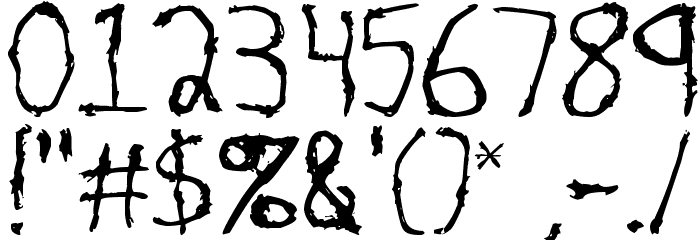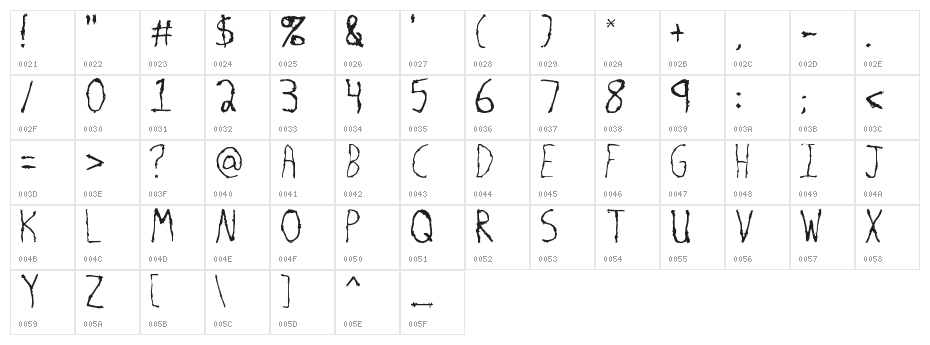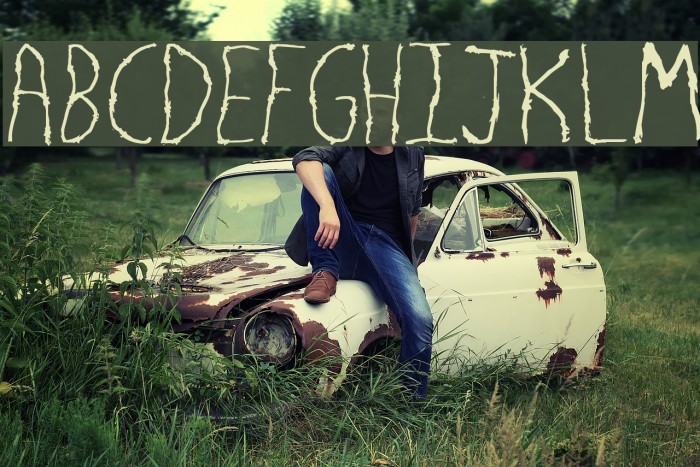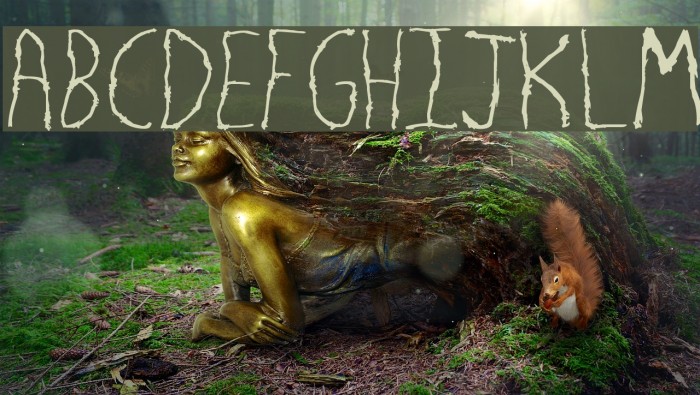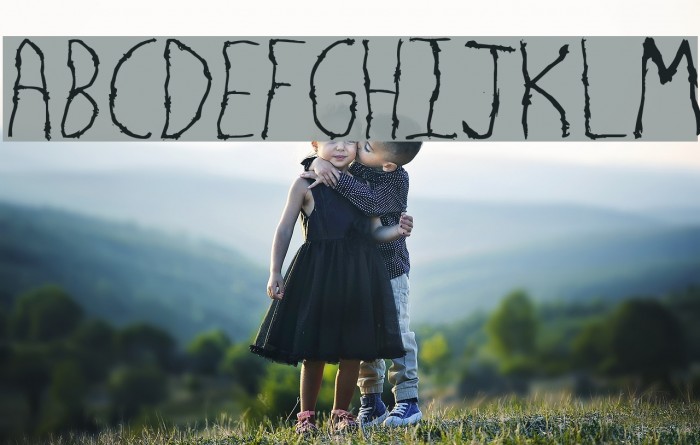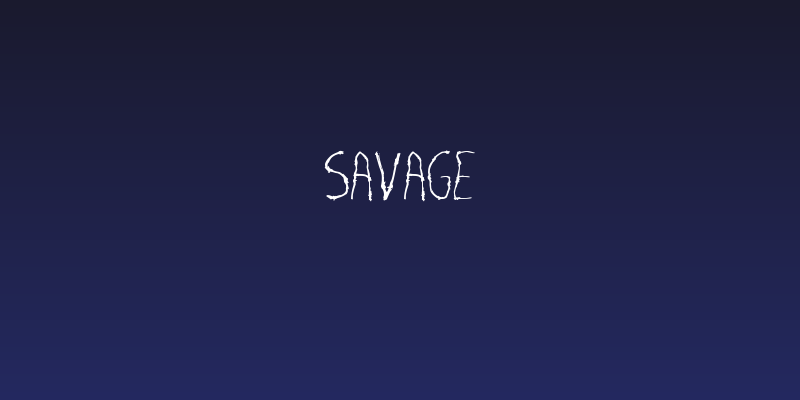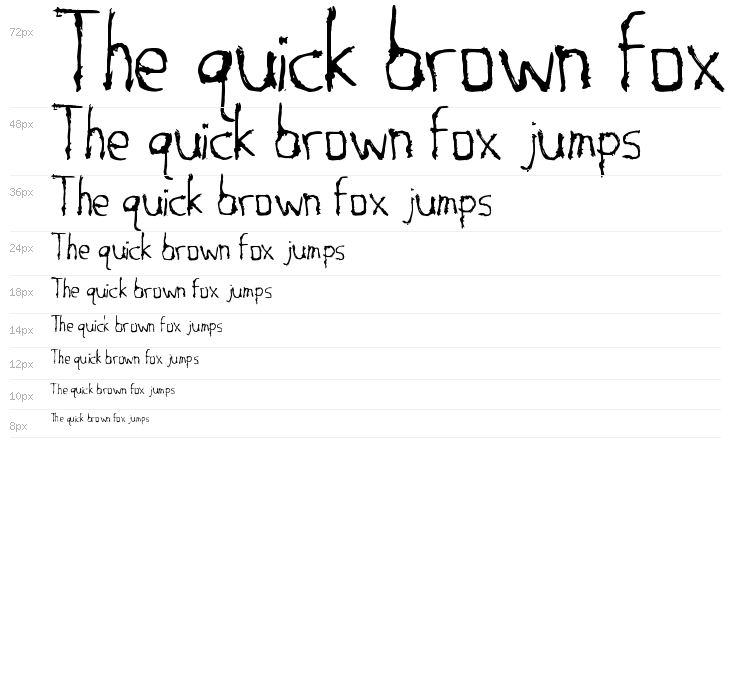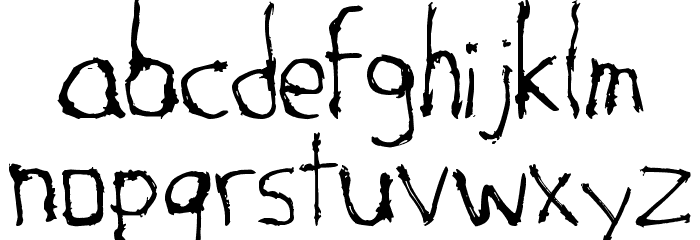
Savage Font
Savage Description
This font exhibits a raw, rugged appearance with jagged edges and an uneven texture, reminiscent of hand-drawn or distressed lettering. The characters are irregular, with varying stroke widths that give it a chaotic and untamed feel. The uppercase and lowercase letters maintain a consistent style, while the numerals and special characters follow suit with the same rough aesthetic. This font's unique design makes it stand out, capturing attention with its bold and unconventional look.
| Proposed Projects | Ideal for horror-themed designs, edgy posters, album covers, and any project requiring a raw, intense aesthetic. |